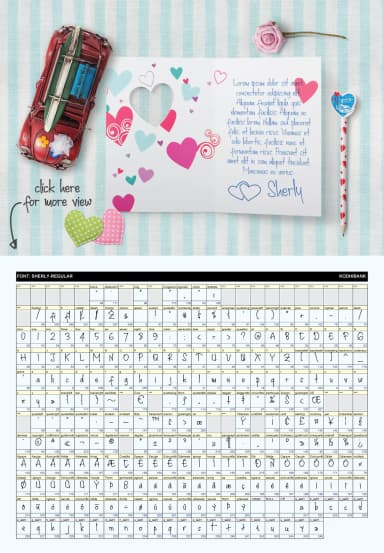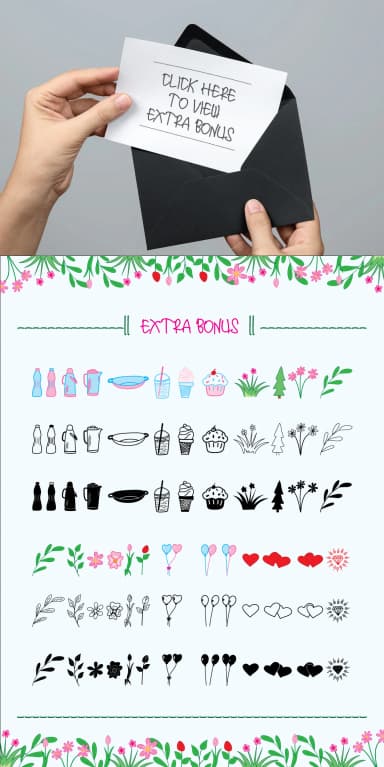
Sherly by banks is a casual handwritten script that brings genuine warmth and personality to any design project. With naturally flowing letterforms and an accessible style, this font works beautifully for wedding invitation suites, handwritten recipe card collections, intimate event menu designs, and personal thank you card layouts. The approachable character makes it ideal for projects where authenticity and human connection matter, think rustic event stationery, artisan product packaging, handmade celebration cards, and personalized greeting card designs that feel genuinely heartfelt rather than corporate. The simplicity of Sherly's forms is actually its strength. It reads clearly whether used large on invitations or smaller on menu cards and recipe notes. Available in both Regular and Bold weights, the font gives you flexibility to create visual hierarchy and emphasis within your layouts. The letterforms maintain consistent character across both variations, so you can layer them together for interesting typographic effects. This versatility makes Sherly suitable for both display and body text applications when appropriate, though it's most effective in larger, more prominent sizing. Whether you're designing printed stationery, digital greeting designs, or custom labels for handmade products, Sherly brings a touch of handcrafted authenticity without requiring actual calligraphy skills, so get Sherly on Creative Fabrica to add this personal, approachable script to your design collection.
- Elegant, Flowing, Sherly
Sherly Font is a script font that shines as a display or heading face. Pair it with a clean sans-serif or serif font for body text β the contrast creates a clear hierarchy while the two styles stay balanced and easy to read.